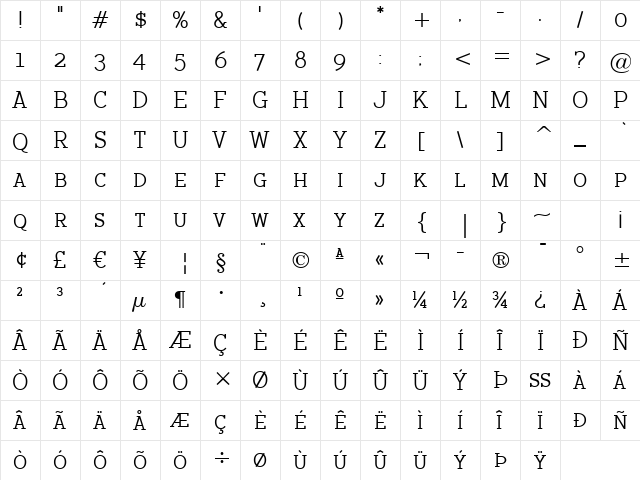
BacktalkSerif BTN SC Regular
Design Context for BacktalkSerif BTN SC Typeface
BacktalkSerif BTN SC carries the refined structure of traditional serif typography, with bracketed terminals and considered proportions that communicate credibility and craft.
Pro Tip: Use BacktalkSerif BTN SC for editorial body copy and considered headline work. Pair with a neutral sans for UI elements or captions to create a classic hierarchy.